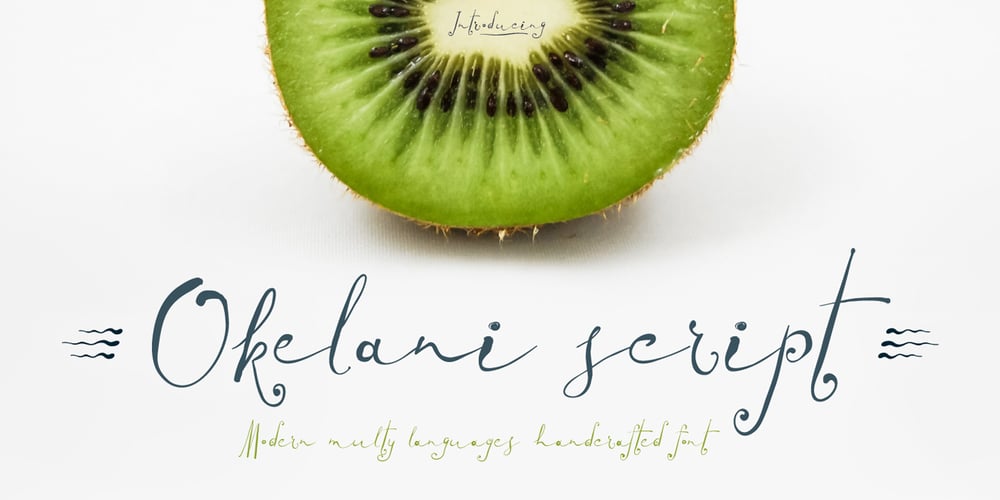
Okelani Script Font Family was designed by Dmitry Arakelov and published by Fontop. Okelani Script contains 1 styles and family package options. Tropical temptation with Okelani script. Cute hand lettered font inspired by Hawaii islands’ natural beauty and zest. Stylistic alternates gives an additional handmade mood. Your quotes, wedding items would look sooo cute with this font. Also is perfect for social media texts, blogs and much more. Font is Latin multilingual and have uppercase letters, lowercase letters, numbers and basic punctuations.